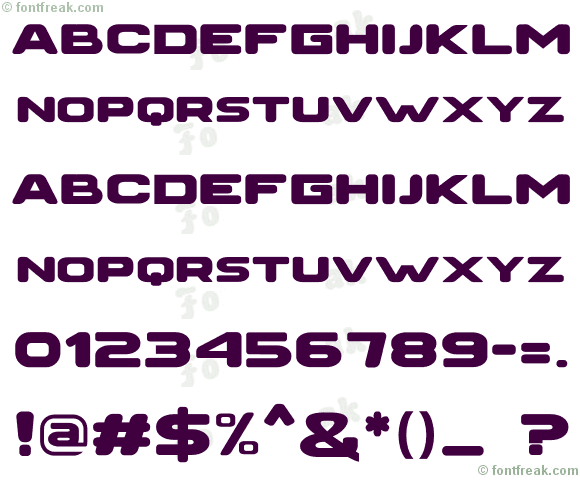
SWITCH STRECTH
Introducing the SWITCH STRECTH font by MaknaStudio, a striking display typeface that embodies a modern, bold aesthetic. Characterized as a sans-serif font, SWITCH STRECTH features a strong, geometric form with consistent stroke weight that conveys a sense of stability and confidence. The letters have a slight stretch in their structure, providing a unique visual appeal that sets it apart from traditional sans-serif designs. Its clean lines and minimalistic approach lend it versatility, making it suitable for a range of applications.
This font excels in various use cases, particularly in contemporary design projects. It works wonderfully for branding, making it an excellent choice for logos and advertising materials. The bold nature of SWITCH STRECTH makes it ideal for attention-grabbing headlines on websites and social media graphics. Additionally, its unique character lends itself well to creative projects such as movie posters, where a modern and impactful statement is essential. Restaurant menus can also benefit from this font, as it enhances the overall aesthetic while ensuring readability.
The target audience for SWITCH STRECTH includes graphic designers seeking innovative type solutions, small business owners looking to enhance their branding, and content creators aiming to make a memorable visual impact. This font’s versatility and modern flair make it a valuable addition to any designer's toolkit.
In a crowded font marketplace, SWITCH STRECTH stands out due to its unique design and practicality. Its freeware license allows for easy access and experimentation, making the SWITCH STRECTH font free download an appealing option for creatives eager to explore fresh typography. This font not only captures attention but also adds a distinctive touch to any project, ensuring that your designs remain memorable and engaging.